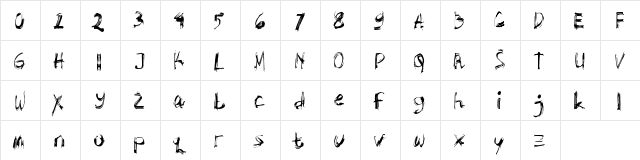
Abstrak Regular
| Designer | Oziel89 Studio |
Design Context for Abstrak Typeface
Abstrak is a composed and adaptable typeface that performs quietly and consistently across a wide range of design contexts.